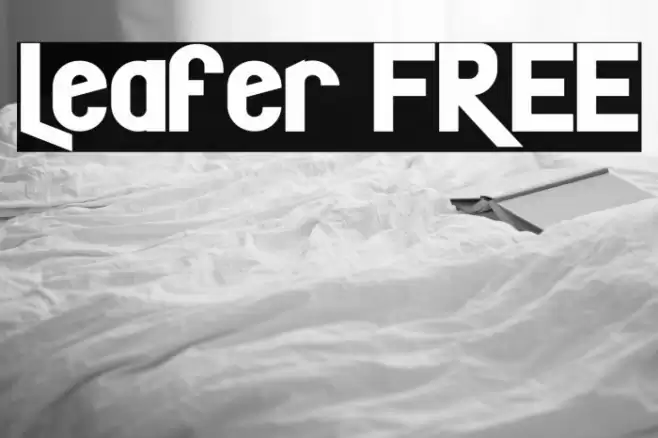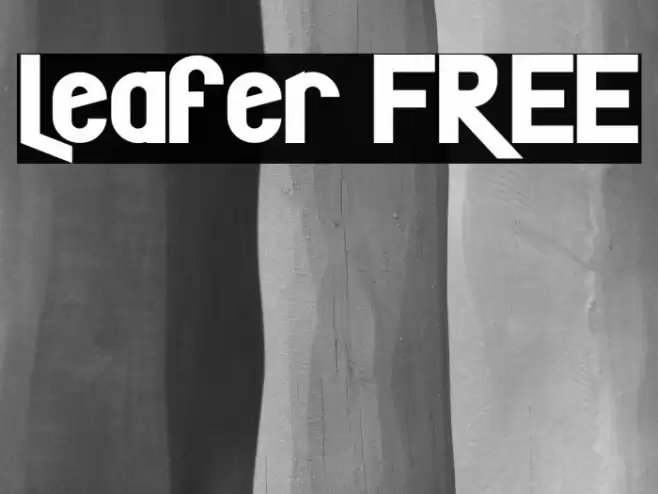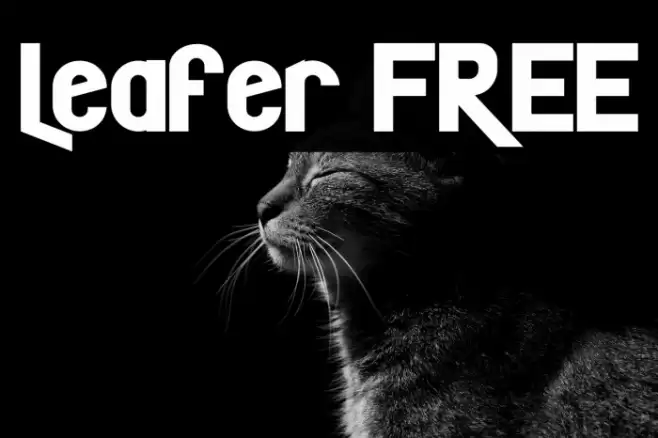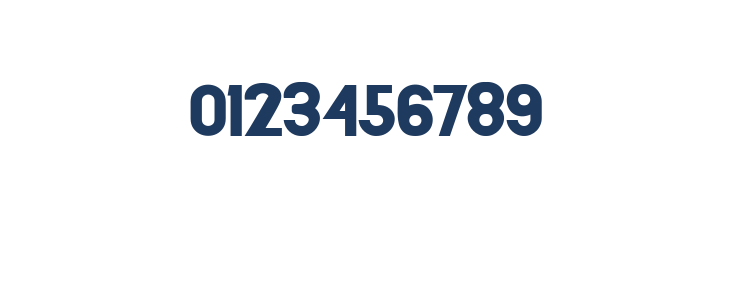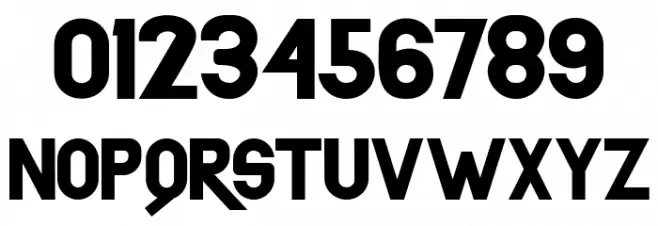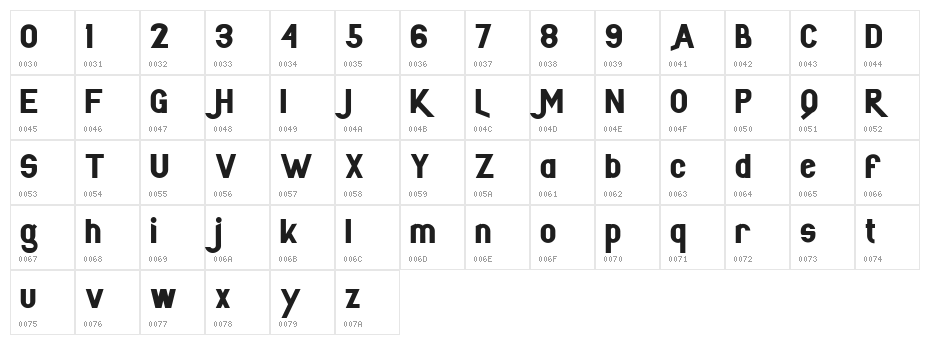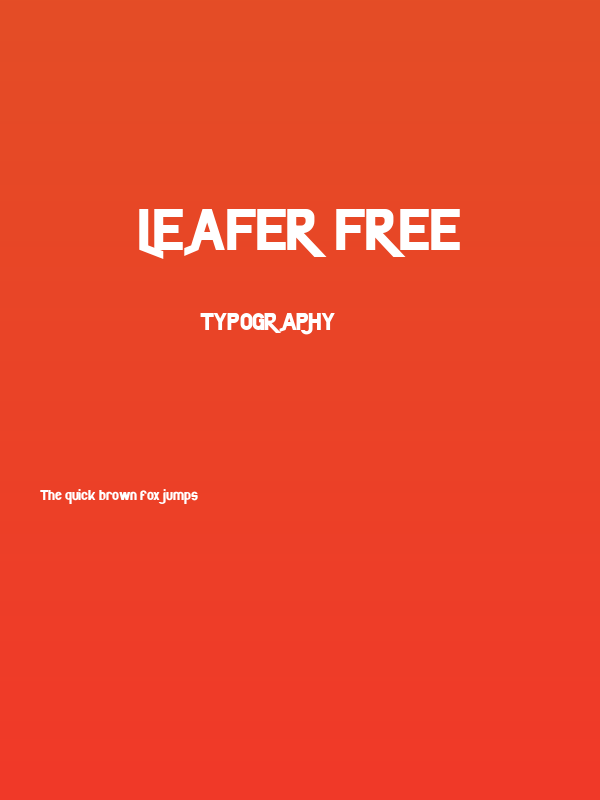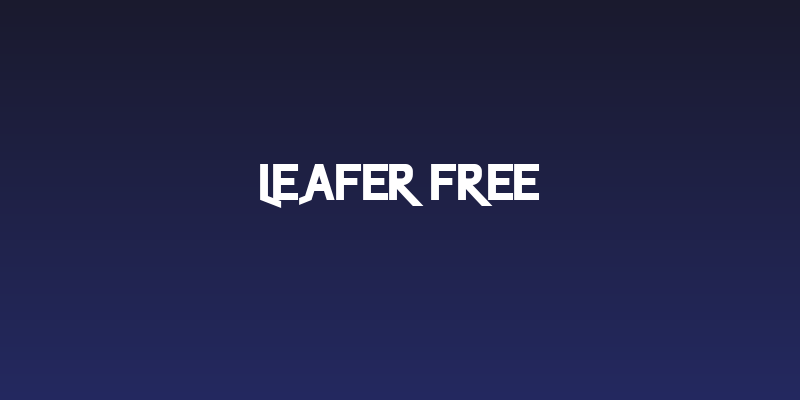
Leafer FREE Font
Leafer FREE Description
This font features a bold and striking design with a modern aesthetic. The uppercase letters are characterized by strong, geometric shapes and a consistent stroke width, giving them a powerful presence. The lowercase letters maintain a similar style, with some unique curves and angles that add a touch of individuality. The numerals are clear and bold, ensuring readability. Special characters are designed to match the overall style, with a cohesive look across all symbols. The font's design is ideal for making a statement, with its bold lines and modern appeal.
A bold, modern font with geometric shapes and consistent stroke width from Regular fonts.
- Proposed Projects: Ideal for branding, headlines, posters, and any project requiring a strong visual impact.